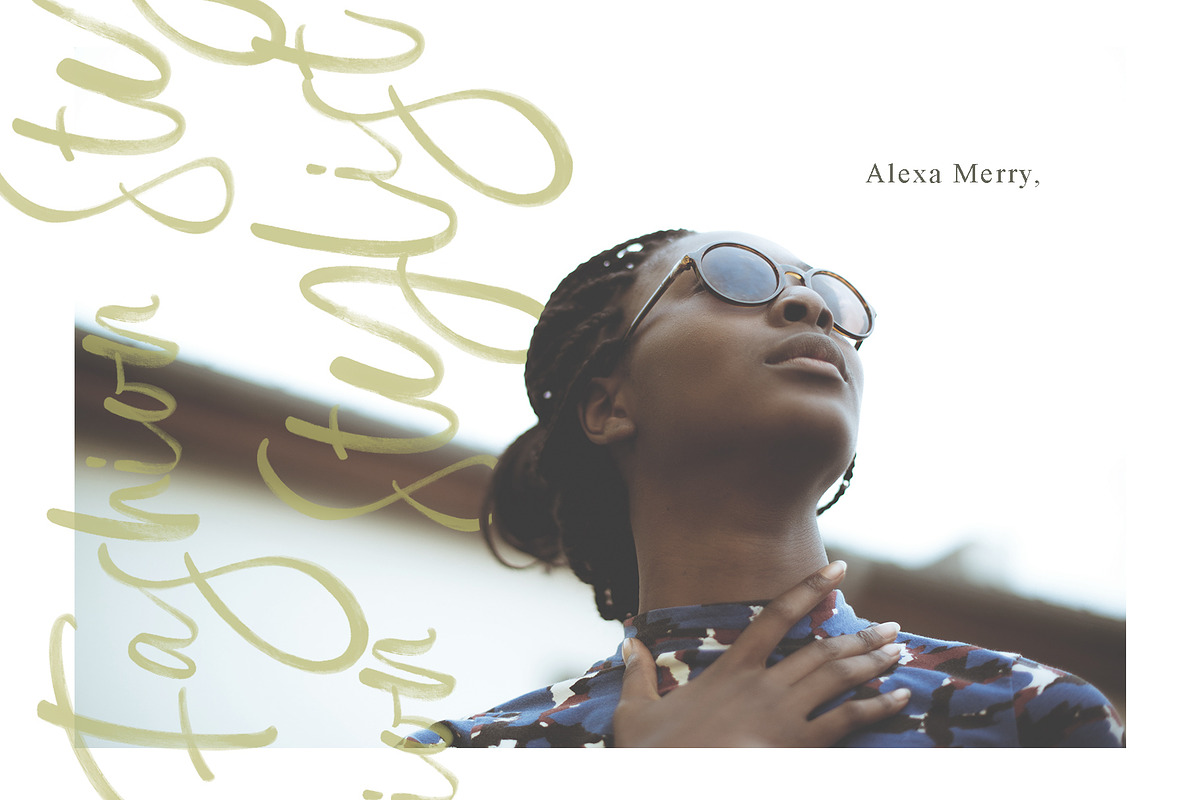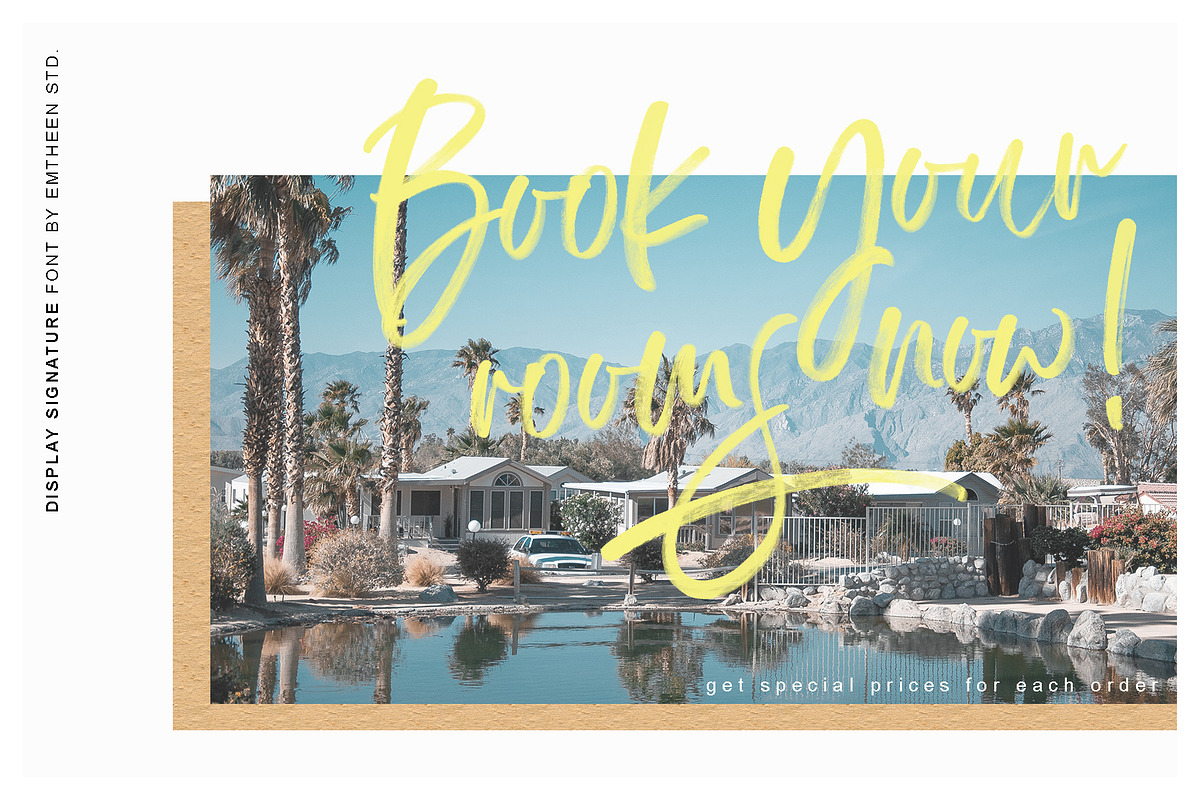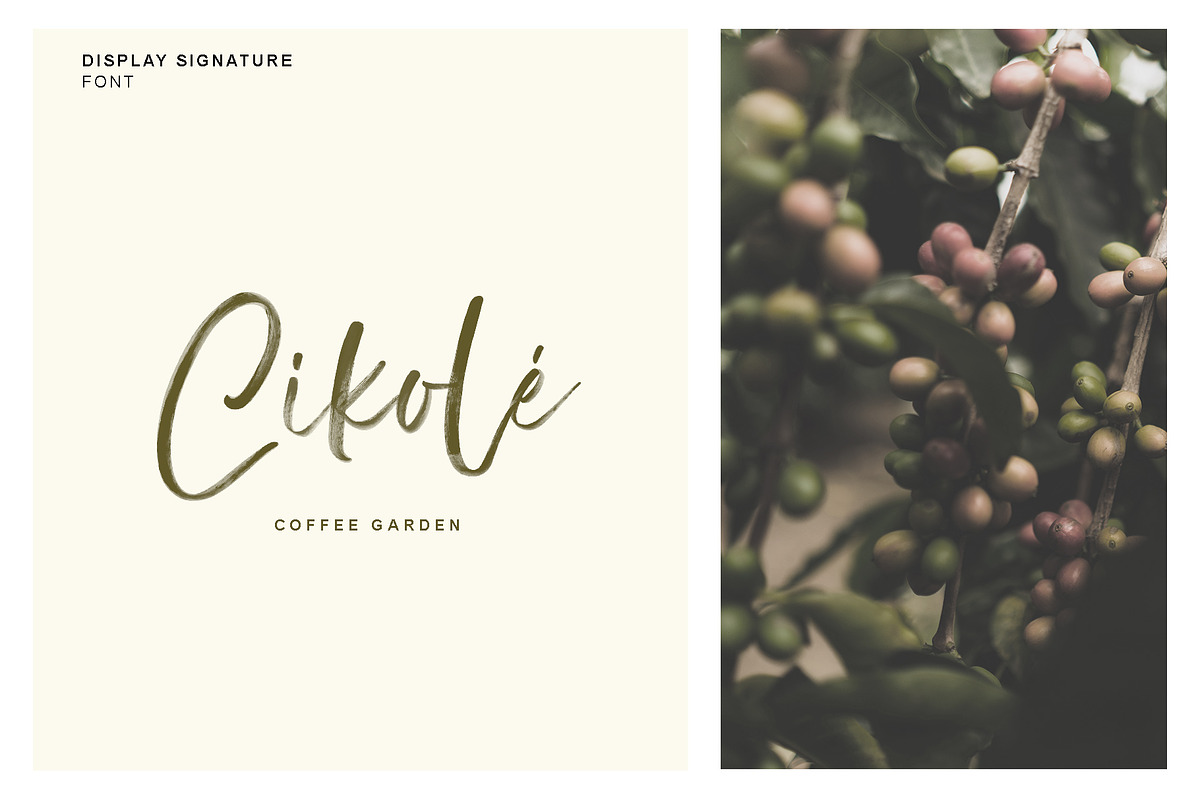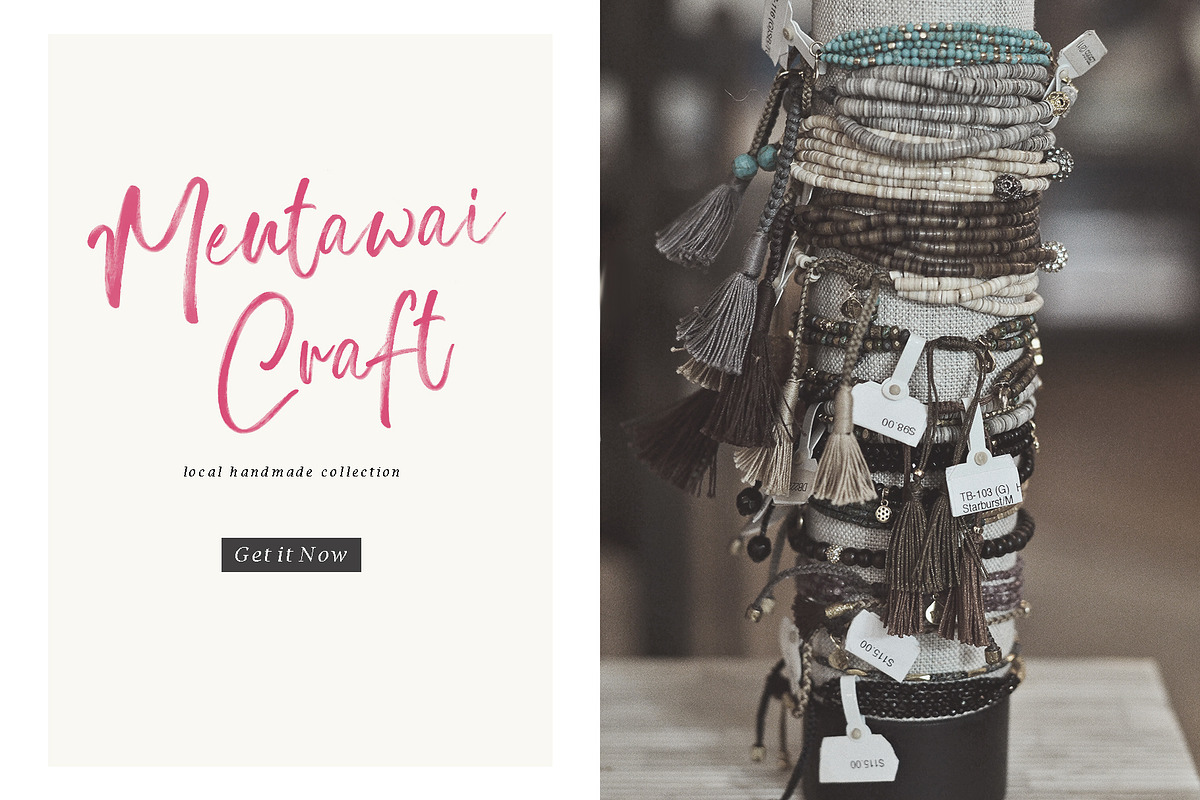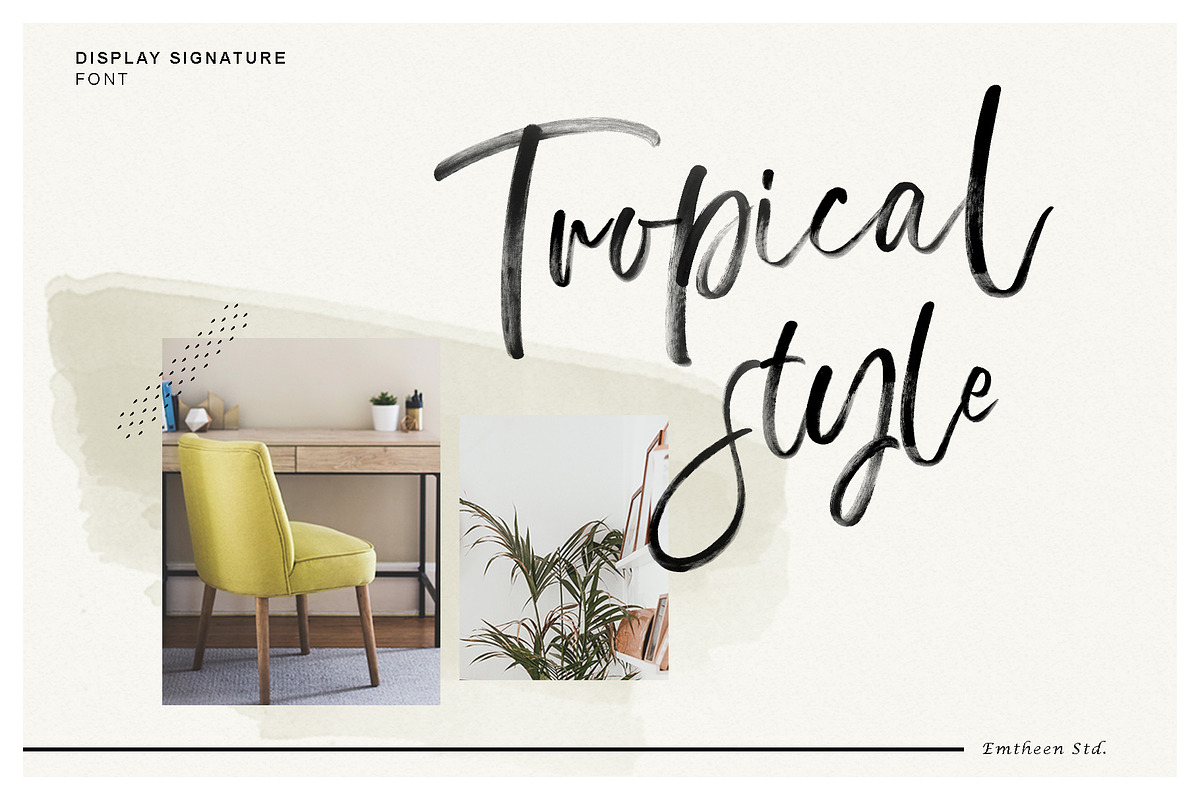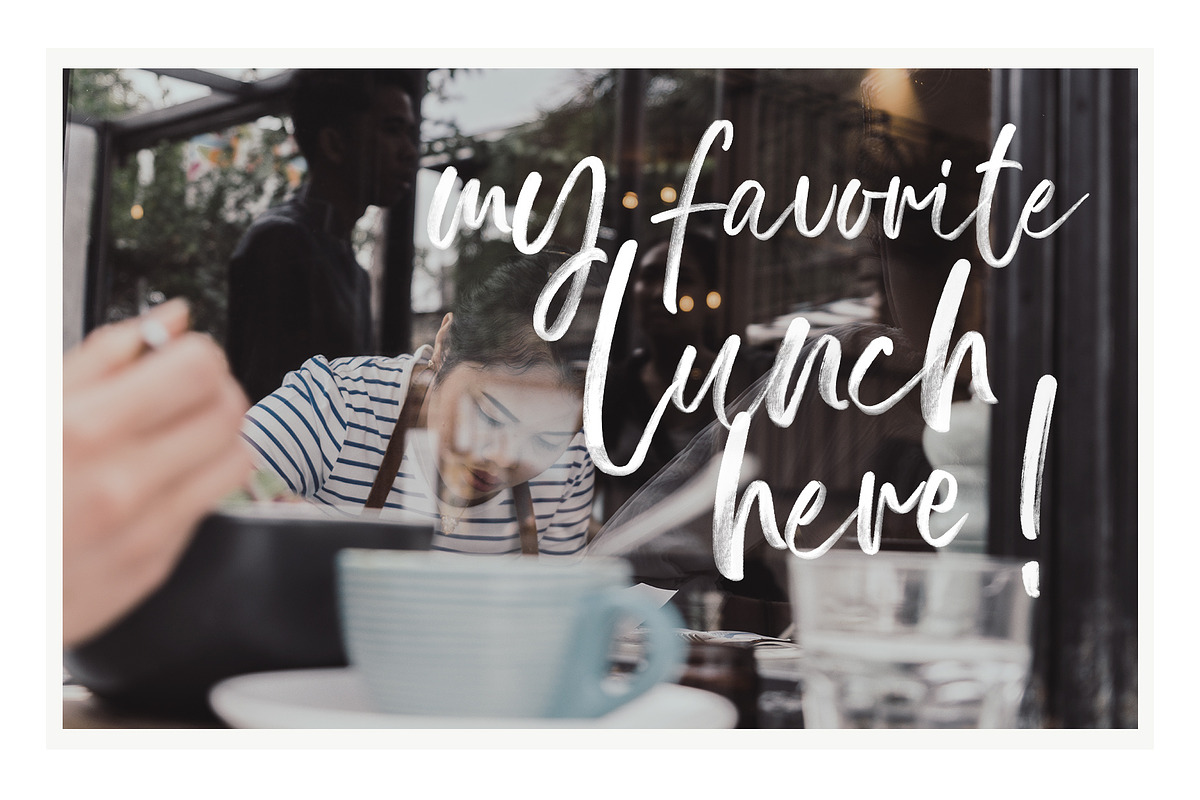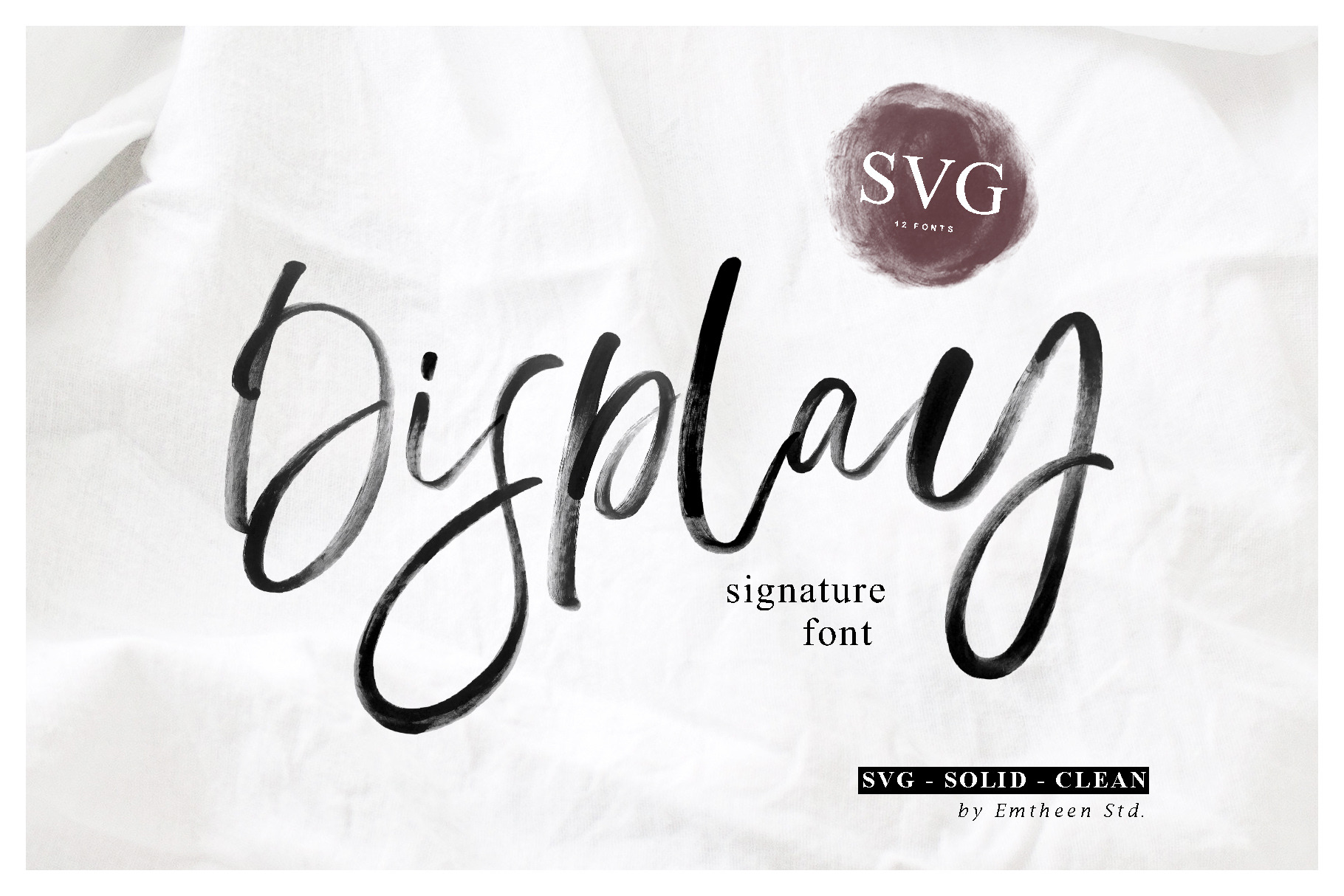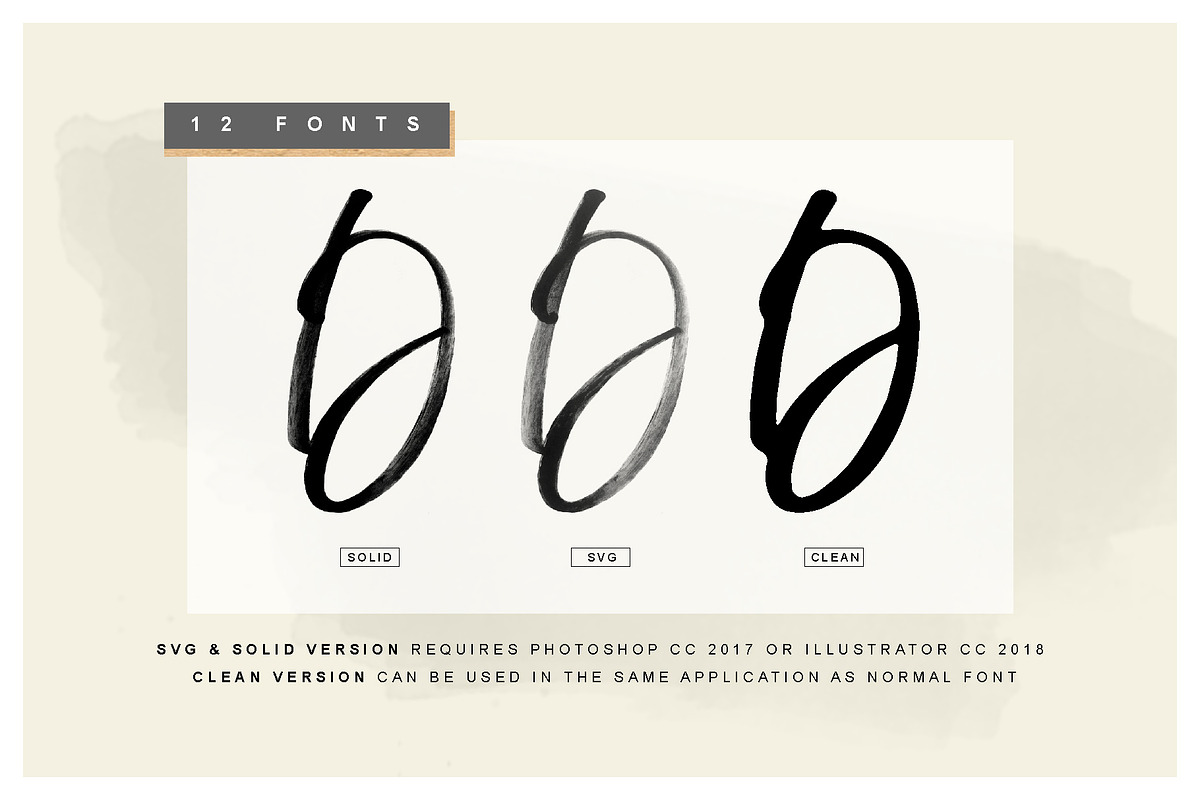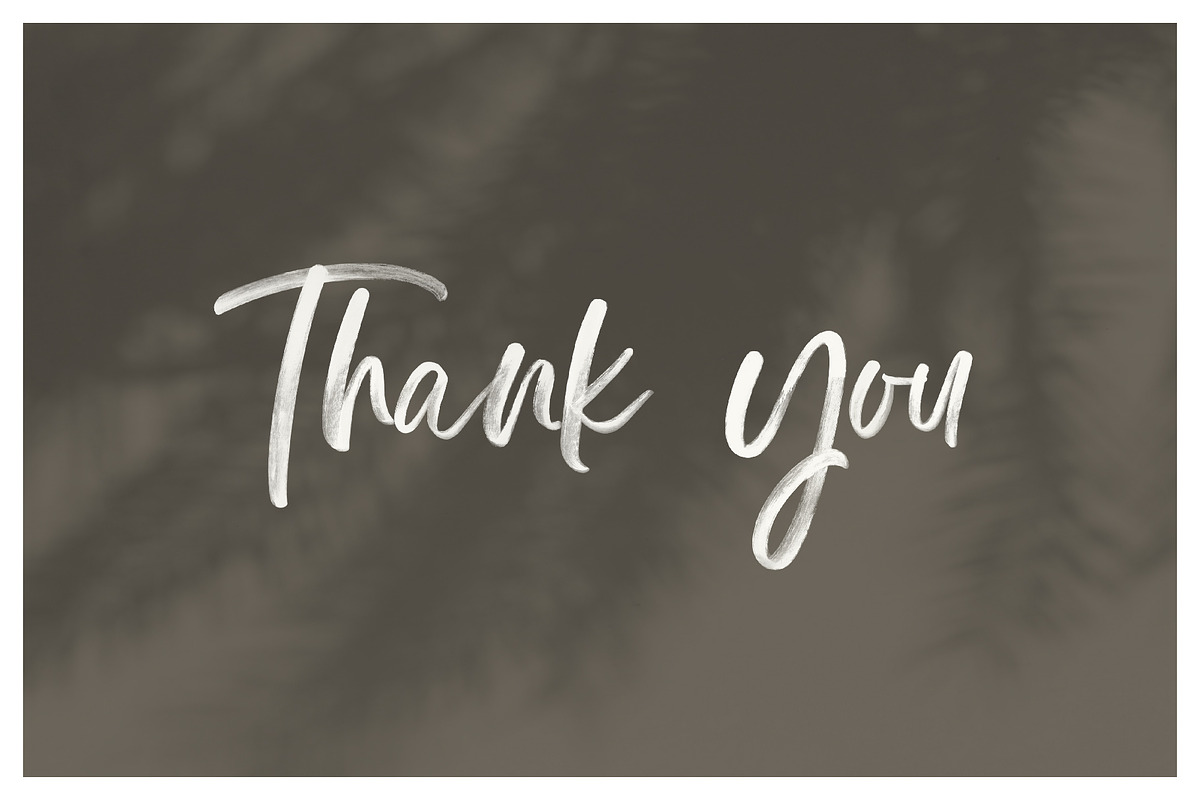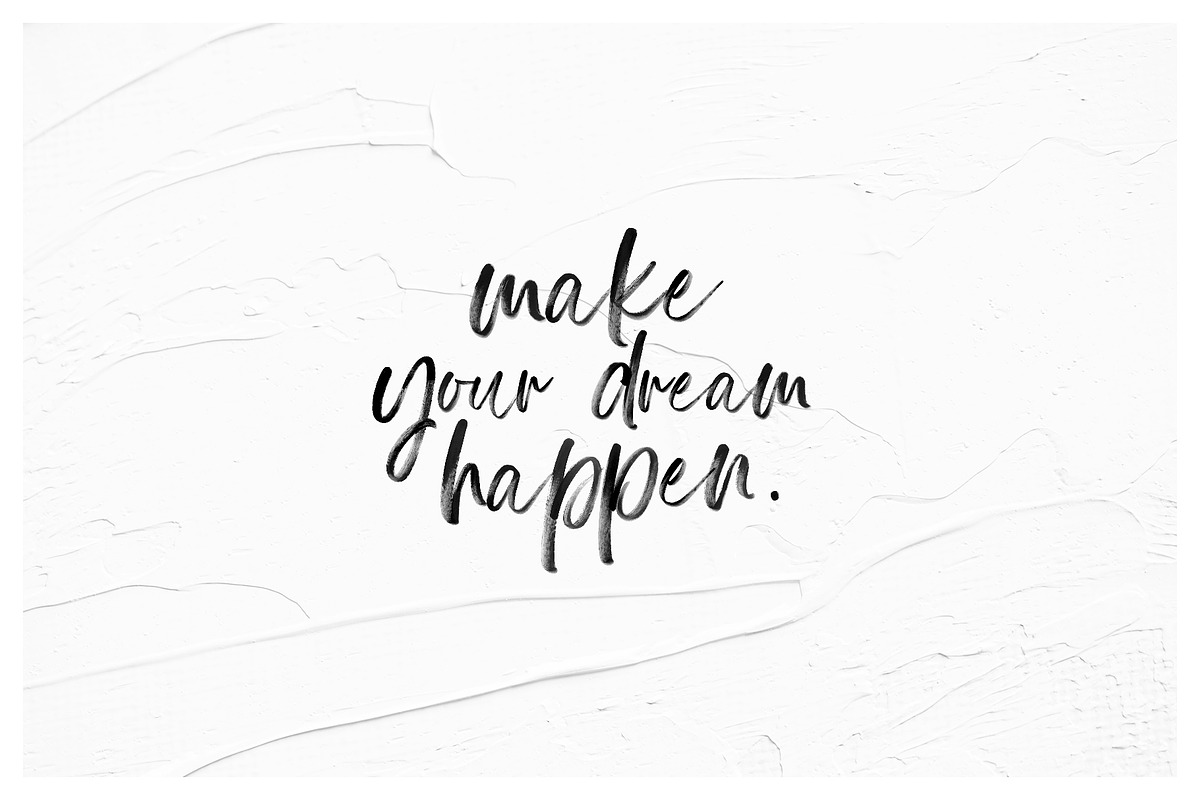
Display Signature Font is an SVG Font with hand lettering style that has the texture and detail of each letter, this original font is handmade using brush so the font looks more realistic and this font has 3 different styles: SVG, Solid, Clean. This font is very suitable for a variety of different media and design styles
Display Regular SVG (uppercase & lowercase letters, numbers, punctuation) this version provides more realistic styles and details just like the preview image, all letters shaped bitmap
Display Solid SVG this version is the same as before only the colors are more concentrated and the letters are smoother
Display Clean This font looks a little different because it is the same vector as the other fonts and there is a little round touch on each corner so that it can be an alternative to the use of fonts
Stylistic Alternates all font styles include Alt (alternate) so each font style has alternate font styles which can be an option so the text looks more interesting or tries to make it different. you just change the font in each letter you want to replace
Swashes there are 5 swashes that you can use as a complement to the Alt font
Multilingual Support: ÀÁÂÃÅÄĄĂÆÇĆČĎÐÈÉÊËĘĚĞÌÍÎÏÑŃŇÒÓÔÕÖŒØŔŘÙÚÛÜŮŲŚŠŞŁÝŸŹ àáâãąåäăæçćčďđèéêëęěğìíîïñńňòóôõöœøùúûüůųýÿŕřśšşłźžß